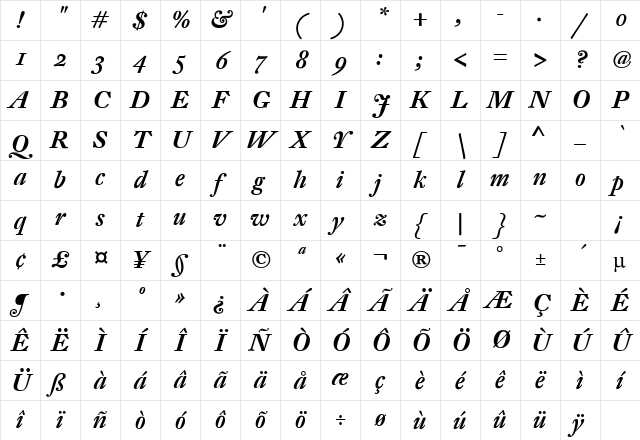
DTLFleischmannST ItalicMedium
Style: ItalicMedium
Design Context for DTLFleischmannST
DTLFleischmannST is a composed and adaptable typeface that performs quietly and consistently across a wide range of design contexts. The slanted form adds forward momentum and visual energy.
Pro Tip: Use DTLFleischmannST for emphasis, pull quotes, and subheadings where its slanted energy can add rhythm to the layout.